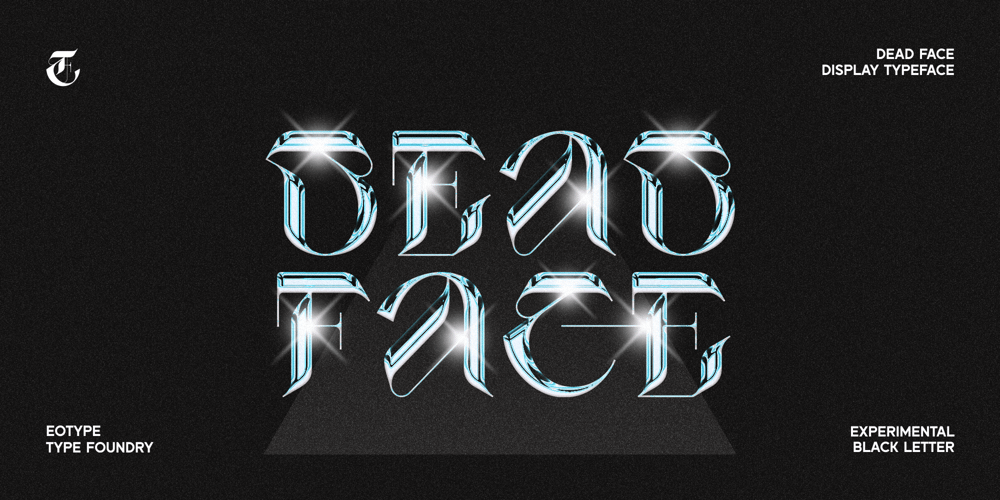
Dead Face Font Family was designed by Fajar Ramadan and published by Eotype. Dead Face contains 1 styles and family package options. Dead Face is an experimental black letter font that has a strong, abstract and segmentive appearance. Dead Face is a black letter font with unique fractures, where each fracture tends to be soft in synergy with thin strokes. Each glyph is crafted originally, so it can stand alone which can be used for logos or clothing designs. This font is also suitable for banners and posters. This font has alternate features and ligatures that are packaged in otf format. Have fun being creative using this font!